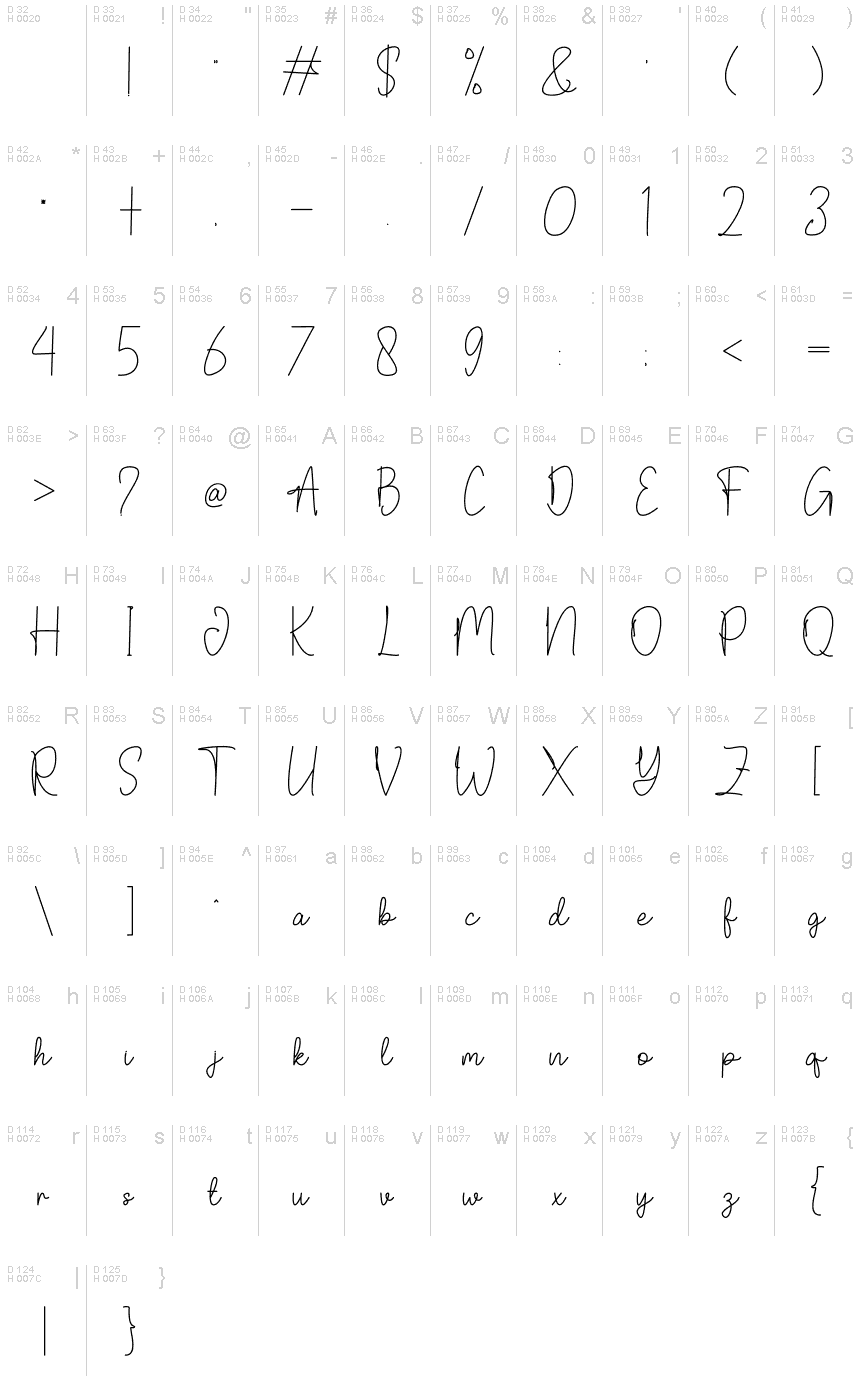
After Daylight
"Discover the ethereal beauty of After Daylight, a captivating handwritten font by Rvandtype. With its delicate strokes and extra-light weight, this font exudes an air of elegance and sophistication.
Perfect for adding a touch of whimsy to wedding invitations, crafting a dreamy logo for a boutique brand, or creating eye-catching social media graphics, After Daylight offers endless creative possibilities. Its unique characteristics make it stand out in a sea of generic fonts, making it an ideal choice for designers and creatives looking to add a distinctive flair to their projects.
Embrace the enchanting allure of After Daylight and let your creativity soar."